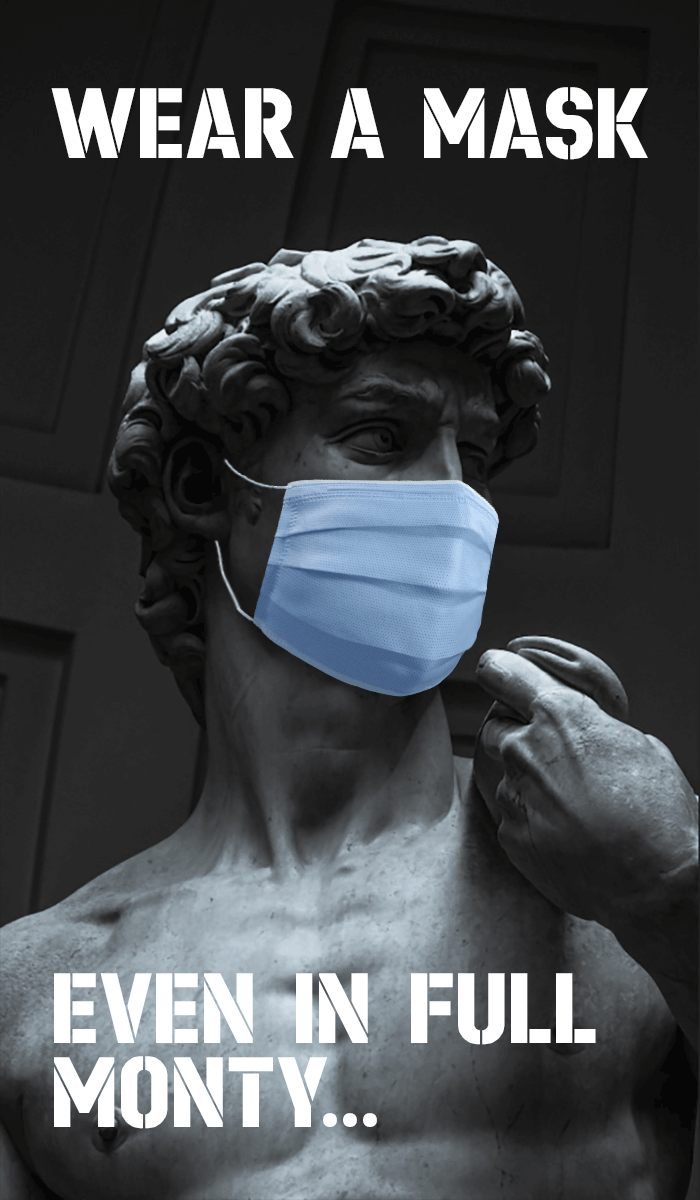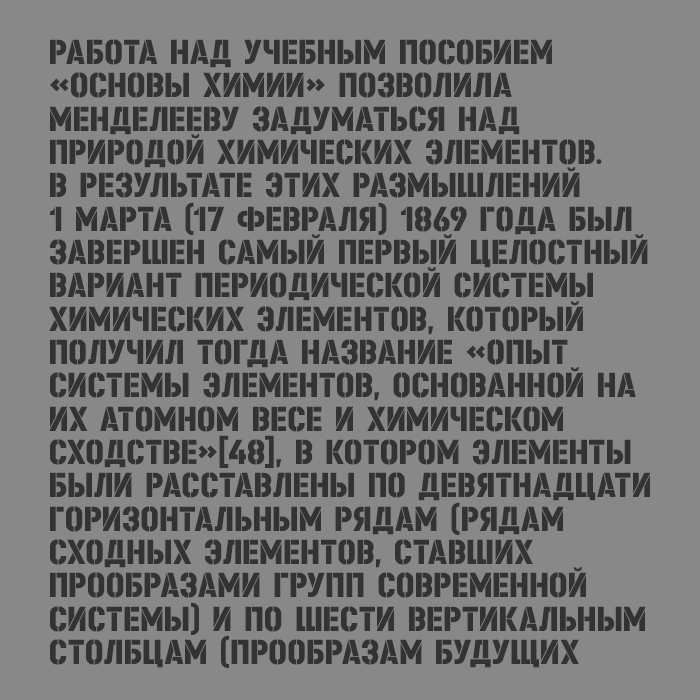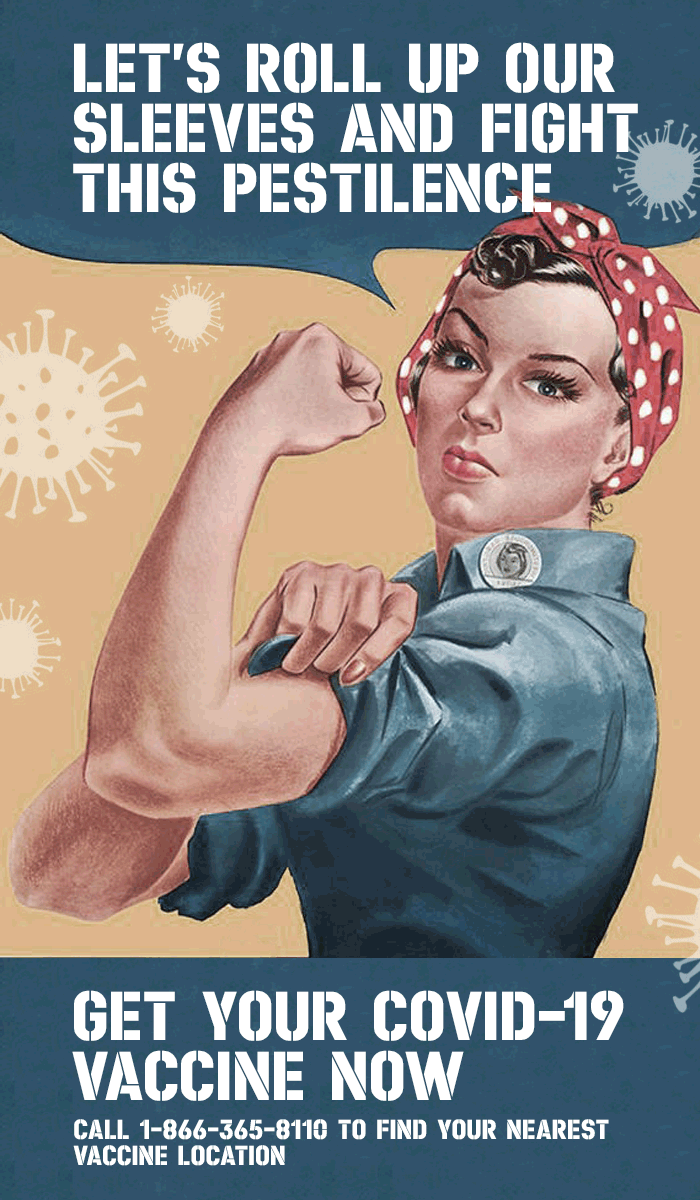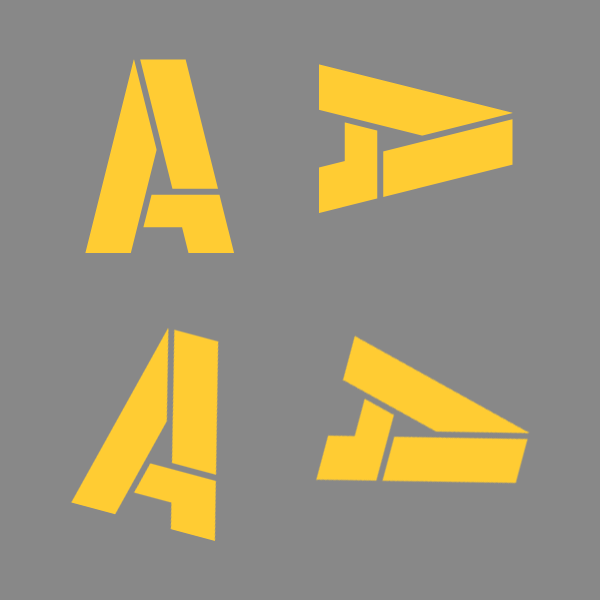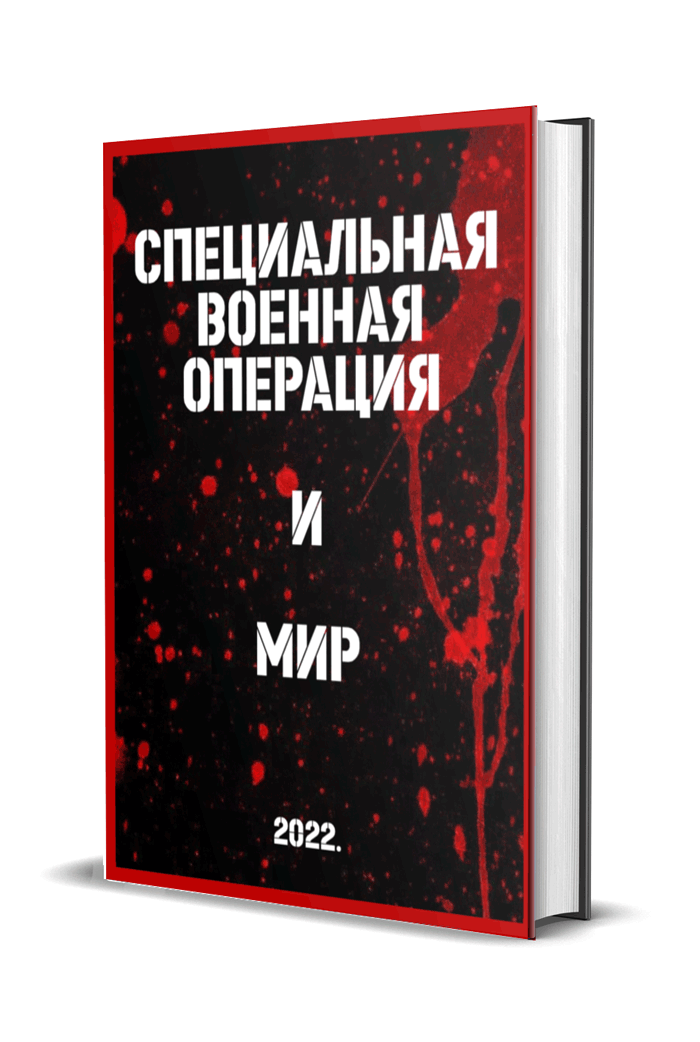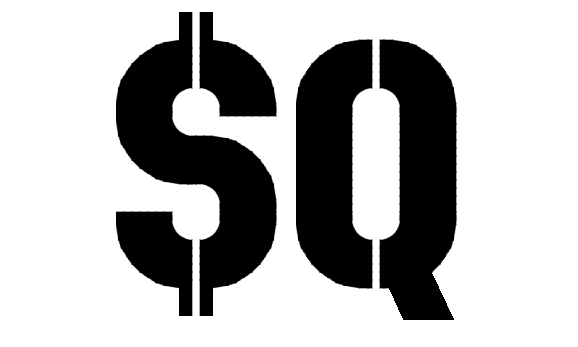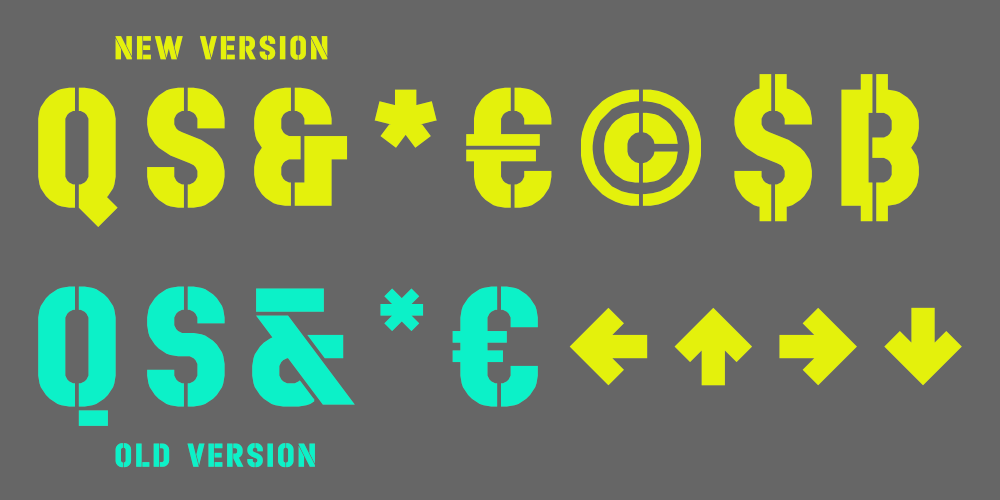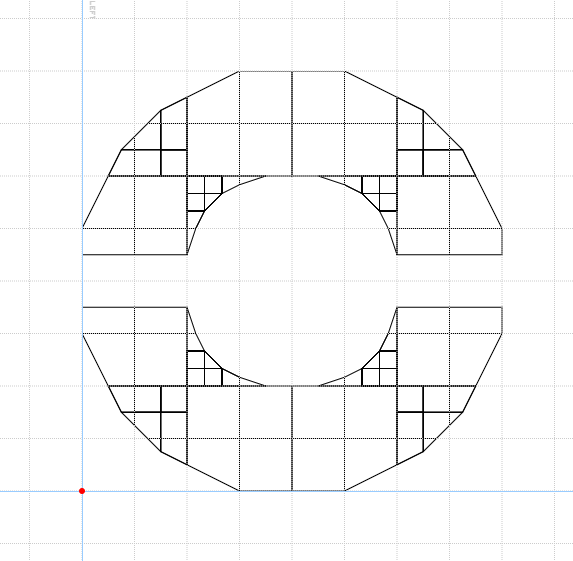
A real beauty. Congrats, Maestro.
Excellent typedesign! Fodo, Chapeau!
I'm curious about the lowercase letters - maby - if they are in the works for another version?
@beate: Thank you. This is capitals only. At this weight, there is no room for a small "s".
They always used capital letters on 1920s Russian propaganda posters.
Russian text sample. (It's a random sample from Wikipedia.)
Ok, anyway, it's a great job
Wonderful samples, Maestro!
Super vision; flawless glyphs construction. Excellent.
What a perfect stencil font, the playful placement of bridges steering it away from becoming rigid.
cool font. i like that you added cyrillic letters.
Thank you for the inspiration. Your solution is flawless. The only complication: the ring has to be nudged by half a brick to be centred. It's tricky, but possible (see the lowercase Å). I also made a version with a single vertical gap (at the capital Å). I'm not sure which one to keep.
To be honest, I misremembered my trouble with the ring. This was not as difficult as I expected. It must have been another fontstruction, or I started hallucinating like ChatGPT.